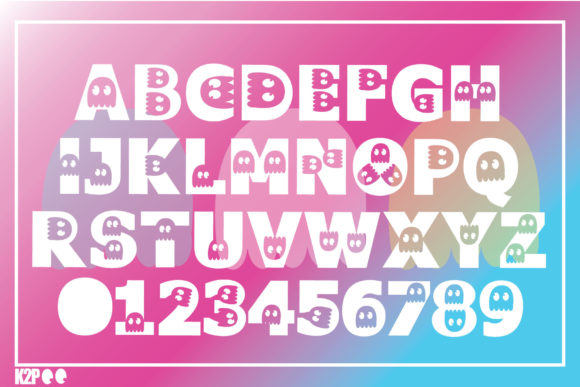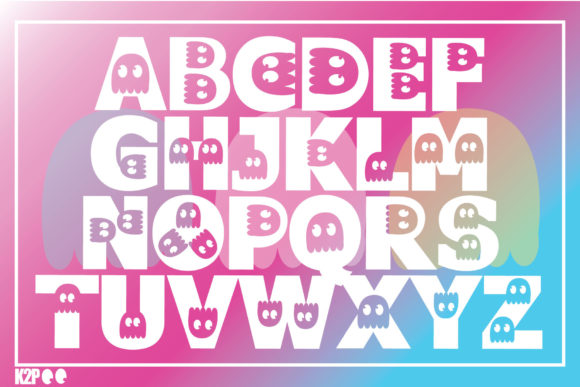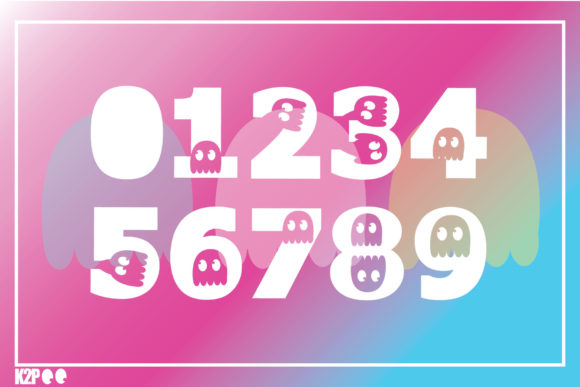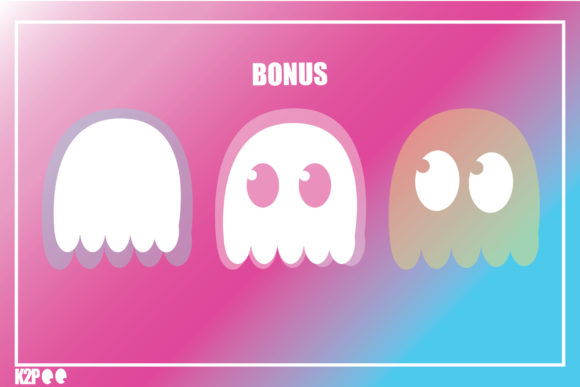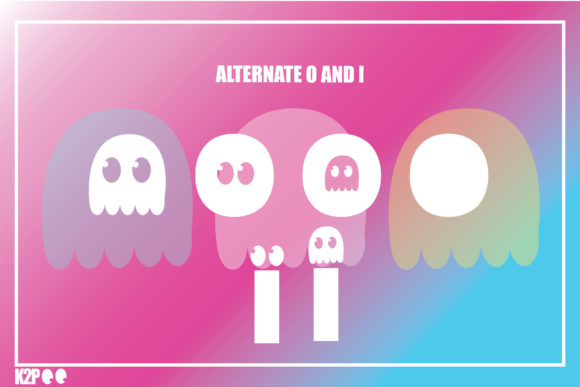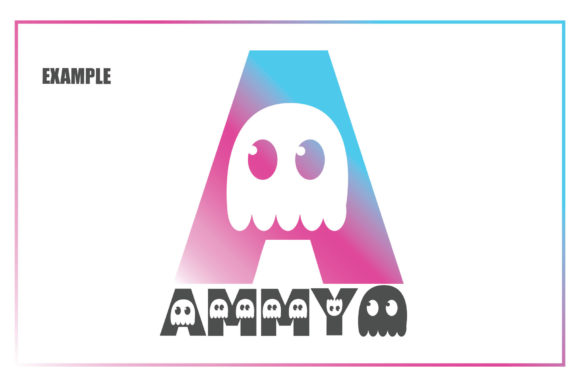
Introduction to Cute Boo Font
Cute boo is a thick-lettered and spooky decorative font.
It is perfectly suitable for any Halloween-related project or crafty idea The only limit is your imagination.
Key Features of Cute Boo Font